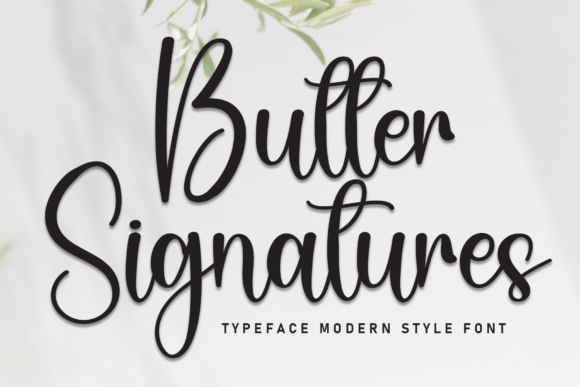
Introducing Butter Signatures Font: Elevate Your Designs with Elegance
In the world of typography, few fonts manage to convey the perfect blend of style, elegance, and personality. Butter Signatures Font is one such exceptional script font that has been making waves in the design community. Its unique charm and versatility have made it a favorite among designers and crafty enthusiasts alike. In this article, we’ll dive deep into the features, applications, and benefits of using Butter Signatures Font in your designs.
What is Butter Signatures Font?
Butter Signatures is a stylish and incredibly elegant script font. It is designed to add a touch of sophistication and personal warmth to any design project. Whether you’re working on wedding invitations, thank you cards, quotes, greeting cards, logos, business cards, or any other design that requires a handwritten touch, Butter Signatures Font is the perfect choice.
Key Features of Butter Signatures Font
- Elegant Script Style: Butter Signatures boasts a beautiful, flowing script style that adds an element of grace and refinement to your designs.
- Versatility: This font is incredibly versatile and can be used for a wide range of projects, from formal wedding invitations to casual greeting cards.
- Readability: Despite its elegant and cursive nature, Butter Signatures maintains a high level of readability, making it suitable for both short phrases and longer texts.
- Customizable: As with many script fonts, Butter Signatures can be easily customized. You can adjust the size, color, and spacing to fit the specific needs of your project.
Applications of Butter Signatures Font
The applications of Butter Signatures Font are vast and varied. Its elegant and personal touch makes it an ideal choice for:
- Wedding Invitations: Add a touch of romance and sophistication to your wedding invitations. The elegant script style of Butter Signatures Font is perfect for formal and semi-formal wedding announcements.
- Thank You Cards: Express your gratitude in style with beautifully designed thank you cards. The font’s warm and personal feel makes it ideal for conveying heartfelt thanks.
- Quotes and Posters: Enhance your inspirational quotes and posters with a dash of elegance. Butter Signatures Font can help your messages stand out with its unique charm.
- Greeting Cards: From birthday wishes to holiday greetings, Butter Signatures Font can add a personal and stylish touch to your cards.
- Logos and Branding: For businesses looking to create a brand identity that exudes elegance and sophistication, Butter Signatures Font can be a great choice for logos, business cards, and other branding materials.
Benefits of Using Butter Signatures Font
Choosing Butter Signatures Font for your design projects comes with several benefits:
- Unique and Memorable: The distinctive style of Butter Signatures Font helps your designs stand out and leave a lasting impression.
- Time-Saving: With its comprehensive set of characters and ligatures, you can create beautiful text without spending hours on customization.
Butter Signatures Font is a versatile and elegant script font that can elevate your designs to new heights. Its stylish appearance, readability, and wide range of applications make it an invaluable tool for designers and crafty enthusiasts. Whether you’re creating wedding invitations, greeting cards, logos, or any other design that requires a personal touch, Butter Signatures Font is an excellent choice. Invest in this beautiful font today and discover the difference it can make in your designs.